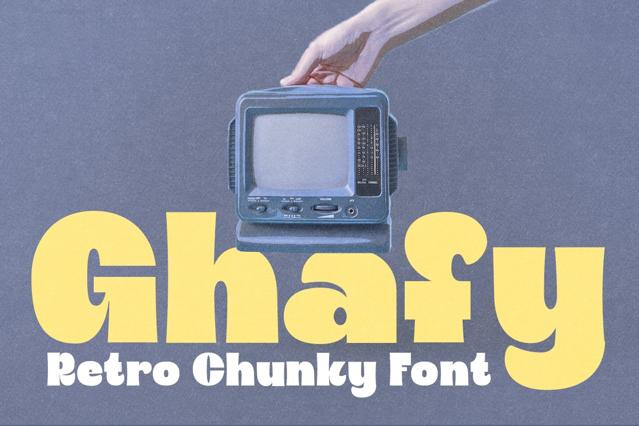
Vintage Fonts
Vintage fonts carry the texture of the past with worn edges, period letterforms, and printing-era imperfections. Our collection covers Victorian display, vintage and slab serifs, retro brush scripts, serif-and-script duos, blackletter, typewriter faces, and distressed sans. Some arrive pre-aged; others are clean-period designs you can weather yourself. Free retro and vintage fonts sit next to premium font families, each with its license for personal use or commercial work on the product page.
Best vintage fonts for heritage branding and period-authentic design
Vintage fonts carry history in their bones. The worn terminals, the period proportions, the honest imperfection of old presswork — these are the details that make a layout feel discovered rather than designed, and we've gathered the fonts that summon that feeling convincingly.
The collection reaches back to early-20th-century type specimens, hand-painted shopfronts, and the rough texture of letterpress and screen printing. Some fonts arrive pre-aged with built-in distress; others are clean period designs you can weather to taste. Most of that look comes from metal and wood type: printers set headlines letter by letter, inked them by hand, and every badge, banner, and cafe sign carried small flaws that now give a nostalgic feel. Art deco posters of the 1920s and 30s added their own timeless, elegant geometry.
Telling a vintage font from a retro font
It's a distinction worth holding onto. Vintage aims for genuine age and authenticity — type that could plausibly have existed decades ago. Retro quotes a specific era with a knowing, stylized nostalgia. We keep them separate because the projects that need one rarely want the other. A retro look reminiscent of groovy 70s or neon 80s styles quotes a decade; a vintage typeface tries to feel like it survived one.
What a vintage display font does well
Vintage type tells a story of tradition and craft before a single line of copy is read, which is why it anchors a particular set of projects:
• Heritage logo identities and "established in" wordmarks.
• Beer, spirits, and coffee packaging with an artisanal claim.
• Barbershop, workshop, and trade signage.
• Editorial features and posters with a historical mood.
• Apparel and merchandise leaning on authenticity.
• Flyers, book covers, invitations, and social media posts with a playful, handmade feel.
• T-shirt designs and badges with decorative lettering.
Vintage font styles: serif, script, and sans serif
• Vintage serif and slab: worn, sturdy letters for a headline or a wordmark.
• Script font and calligraphy: brush and pen scripts for signs and labels.
• Sans serif and art deco: tall display letters for posters and menus.
• Gothic and Old English: blackletter for heritage marks and certificates.
• Typewriter and inline: utilitarian and decorative cuts for the details.
Timeless vintage font use: aging gracefully, not loudly
Texture is powerful and easy to overdo. Heavy distress clogs at small sizes and turns a tasteful nod to the past into costume when it's applied everywhere at once. We'd use one strong period font with room around it, test the worn cuts at final size, and let the restraint read as heritage rather than pastiche.
Vintage fonts evoke a genuine sense of age and period authenticity — they feel like artifacts. Retro fonts reference a specific recent era (the 60s through 80s, often) with a stylized, nostalgic wink. Vintage is about feeling old; retro is about quoting a decade.
Some do — distressed, rough, or letterpress-style versions are common — while others are clean designs in a period style that you can age yourself. Product pages note when textured or distressed cuts are included, which matters if you want grit without faking it in post.
They take a little more care. Heavy distress can clog at small sizes and may not scale cleanly, and rough edges sometimes need a high-resolution export to hold up in print. We'd test them at final size early rather than at the end of a project.
Heritage and craft branding, beer and spirits packaging, barber and workshop signage, editorial features with a historical angle, etc.
Yes, when used with restraint. A single well-chosen period font set cleanly, with generous space and a modern layout grid, reads as considered heritage. The kitsch creeps in when everything is distressed at once.
Coverage varies, and some authentic styles have limited character sets by design. If you need full punctuation, accents, or specific ligatures, check the glyph map on the product page before committing.
Cooper Black, Windsor, and ITC Souvenir are the classic 70s style fonts: soft, round serifs with a warm, groovy feel. Our collection includes contemporary retro fonts in the same spirit, many with alternates for swashes and ligatures.
Start with the era and the job: a slab serif for a header, a script font for a label, a decorative display font for a poster. Use one vintage font per layout, pair it with a clean sans serif for body text and numerals, and test it at final size before printing. Using retro fonts the same way keeps a design from turning into pastiche.